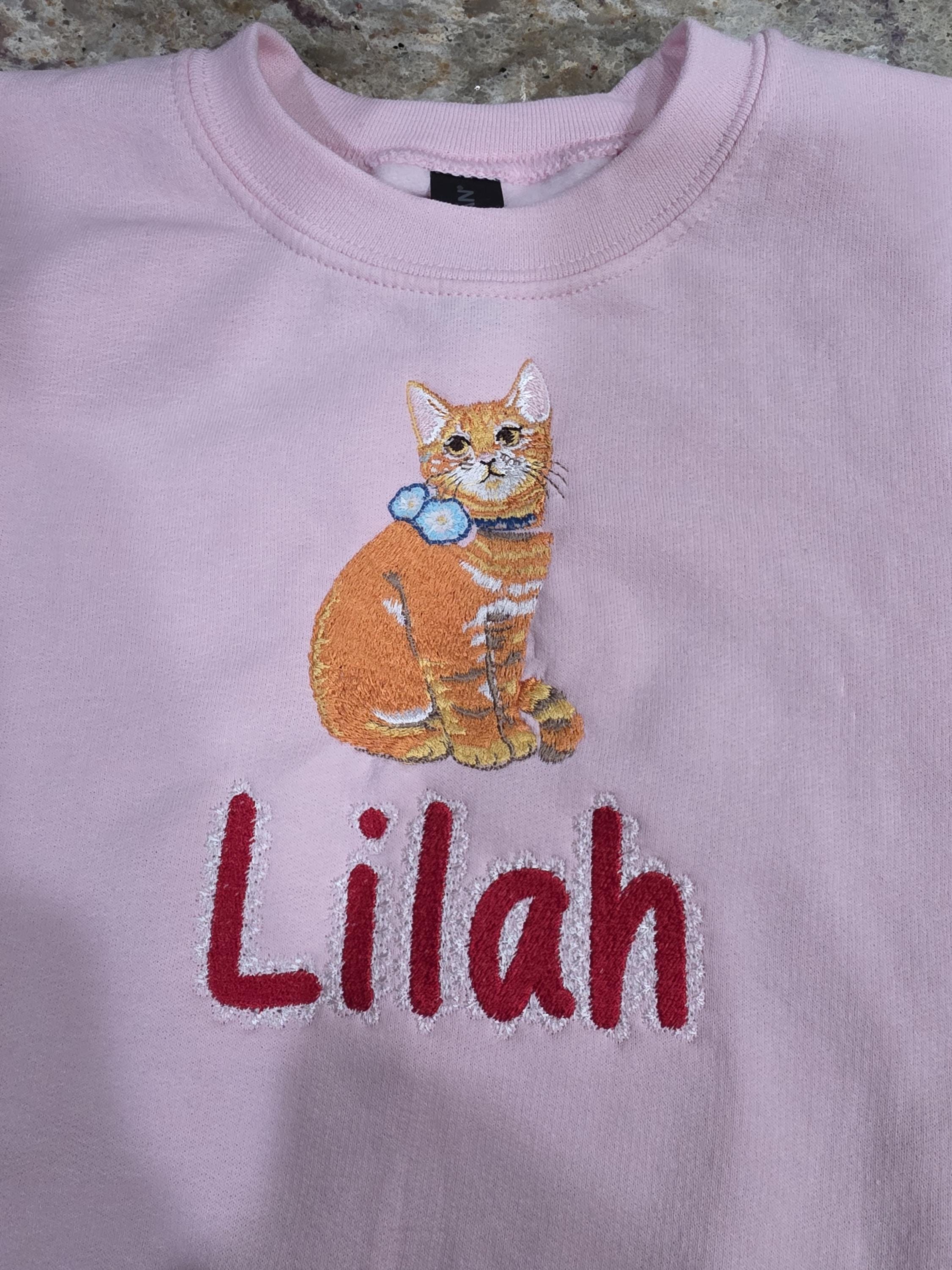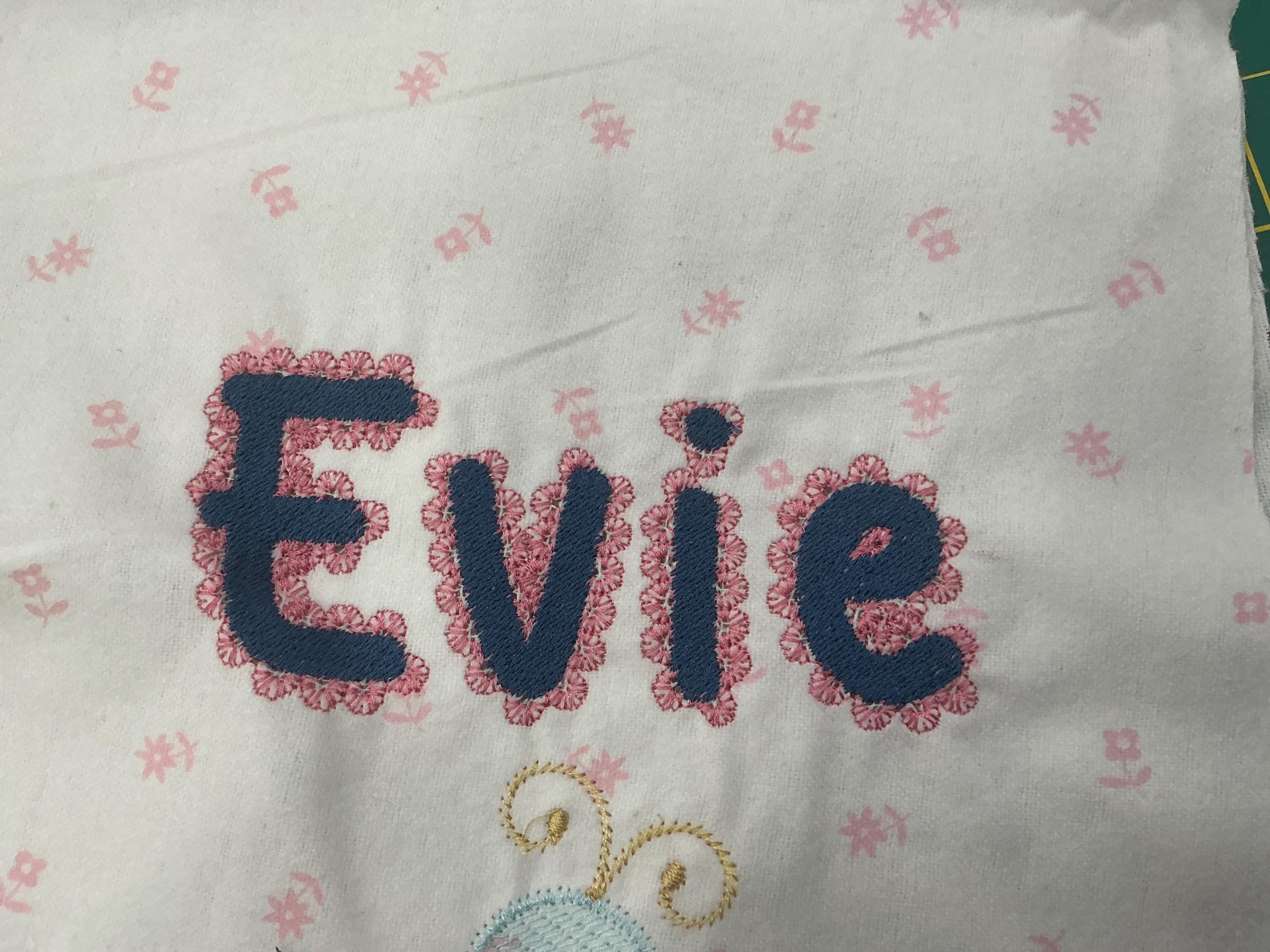
Lace Edge Font opens a world of delicate lettering with a lace technique and fill stitch finish. This lace embroidery alphabet includes uppercase, lowercase, numbers and punctuation for full personalization. Use the fill stitch monogram style to create baby girl embroidery font items or classic lace font embroidery for heirloom pieces. Designed for small sizes (1.5, 2, 2.7, 3.2 inches) and available in BX, PES, DST, JEF and other formats, this lace edge font is ideal for baby monograms, nursery decor and special new arrival gifts.
The Lace Edge Font combines lace-edge detailing with a fill stitch interior to create delicate letters; the set includes uppercase, lowercase, numbers and punctuation and runs at a stitch count of 6597 per typical character.